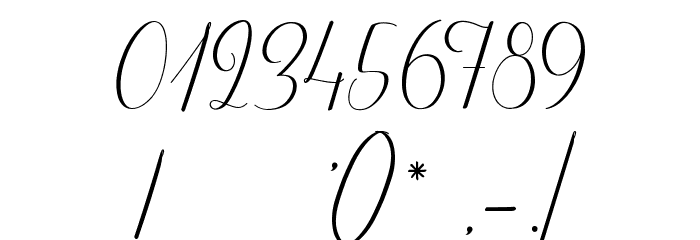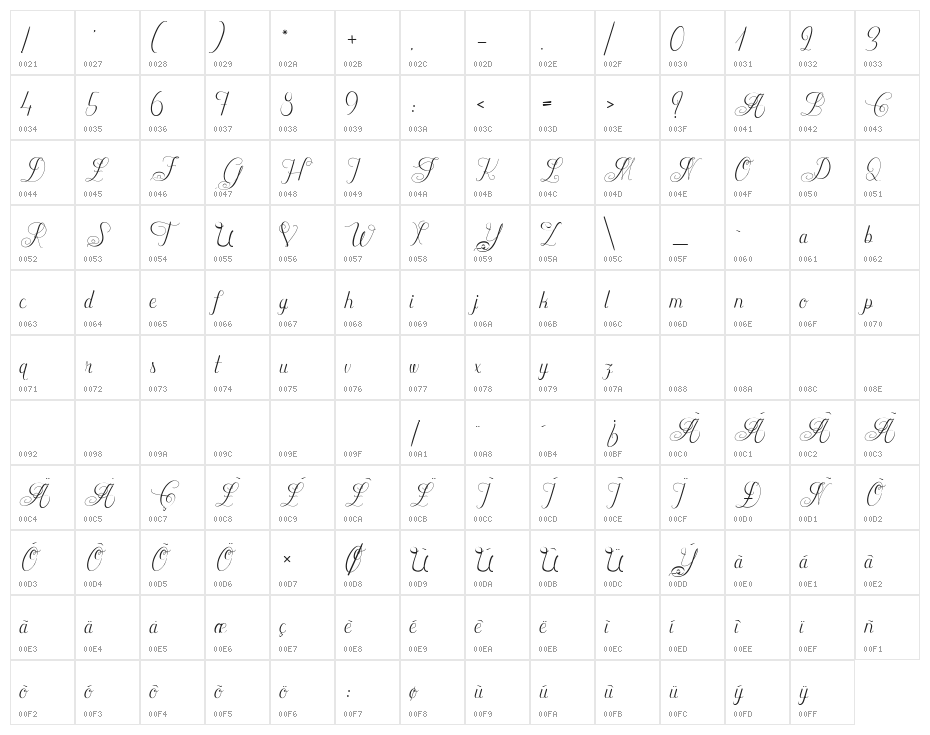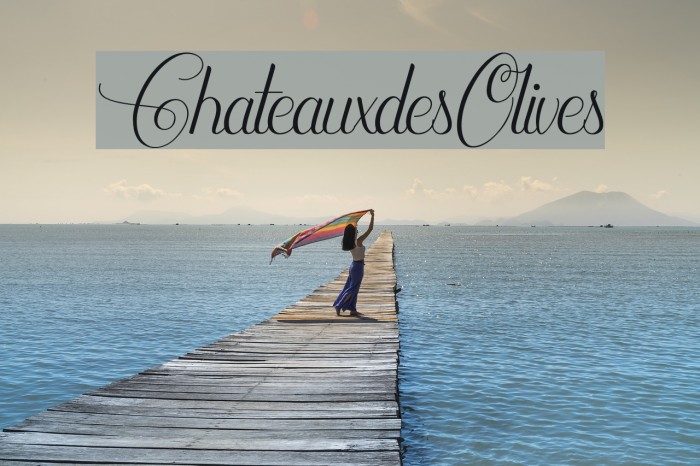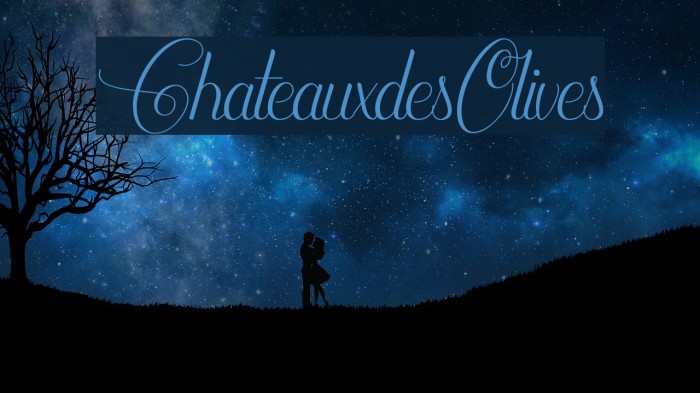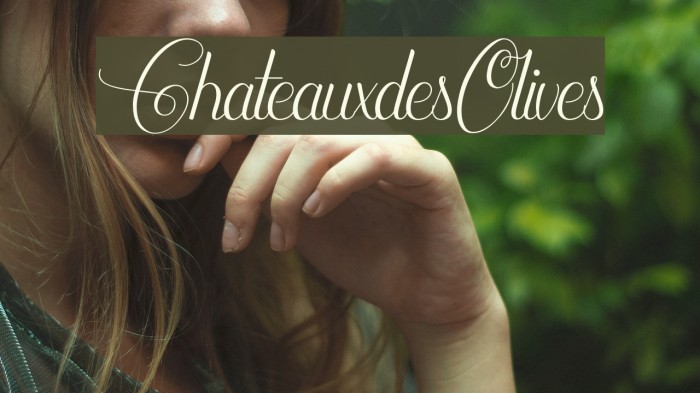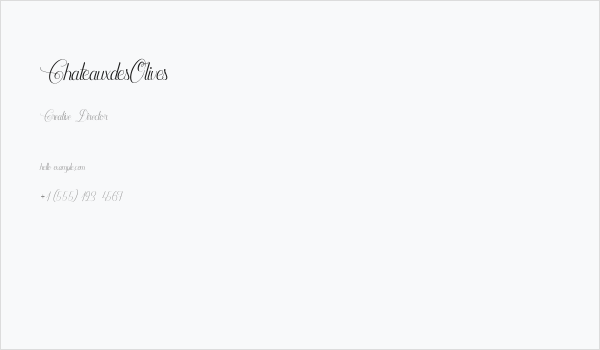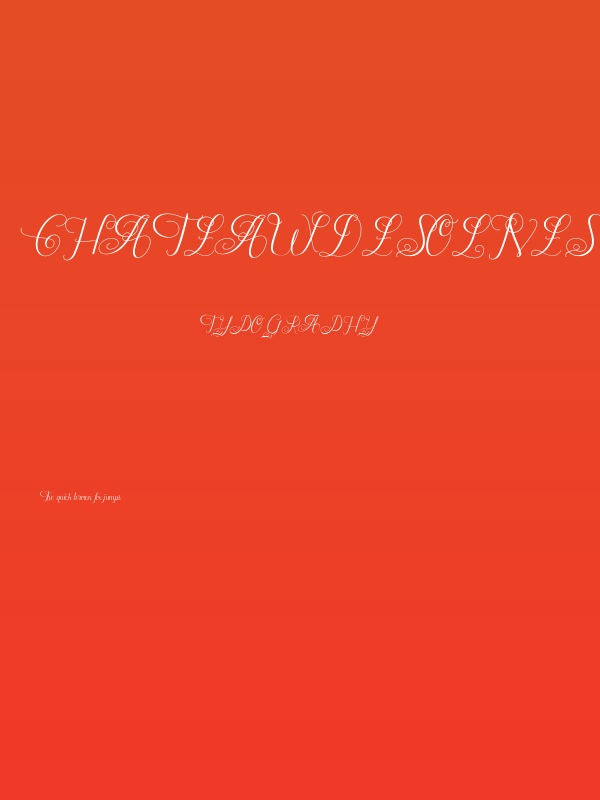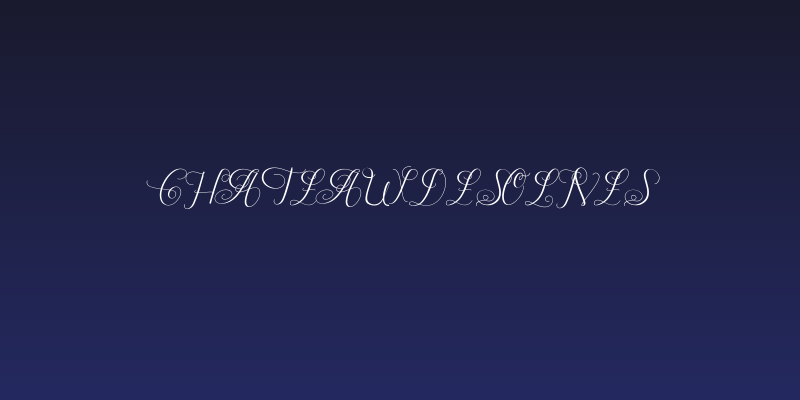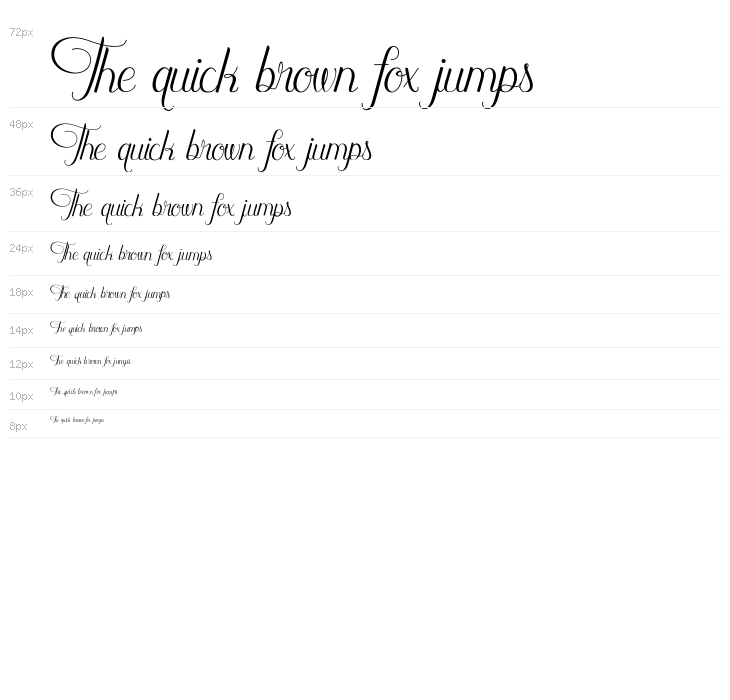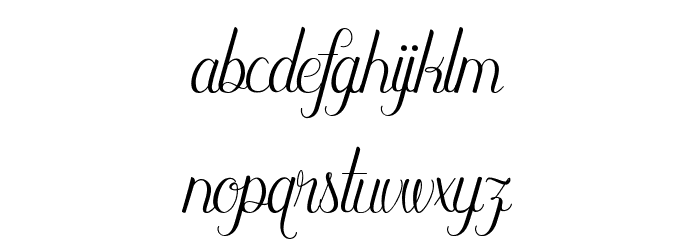
ChateauxdesOlives Font
ChateauxdesOlives Description
This elegant script font features a sophisticated and flowing design, characterized by its ornate and decorative swirls. The uppercase letters are particularly elaborate, with intricate loops and flourishes that give a sense of grandeur and formality. The lowercase letters maintain a more restrained elegance, offering a smooth and continuous flow that enhances readability while retaining a stylish appearance. The numerals are consistent with the font's overall aesthetic, featuring gentle curves and a refined look. Special characters are thoughtfully designed to complement the font's luxurious style, making it suitable for high-end branding and formal invitations.